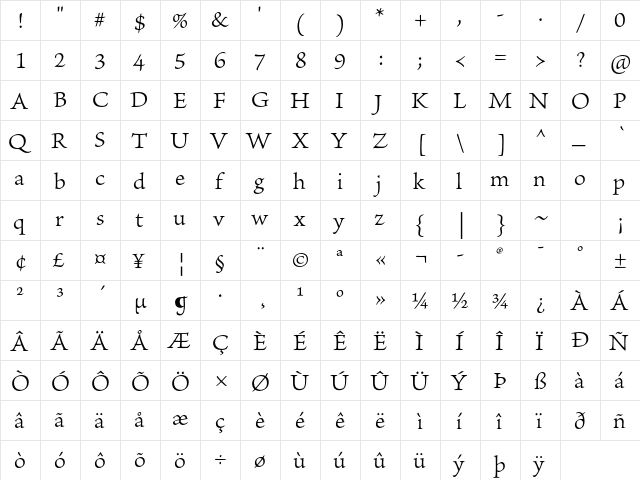
Brioso Pro Light Caption
| Designer | Robert Slimbach |
Design Context for Brioso Pro Typeface
Brioso Pro offers clean, dependable letterforms without strong stylistic allegiance, making it a practical choice for designers who need flexibility. Its slender proportions lend an understated elegance to any composition.